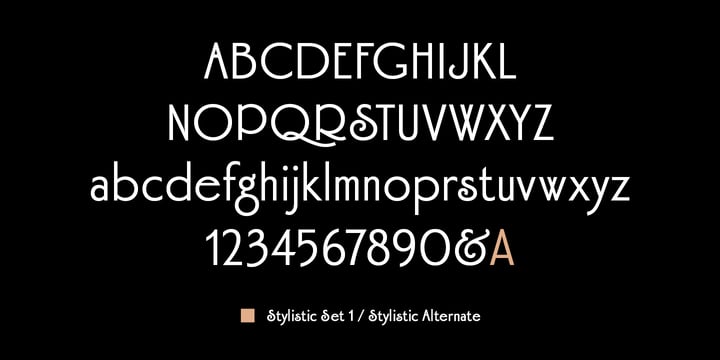
Hamptons BF™
The Hamptons BF Font Family was designed by John Bomparte and published by Bomparte's Fonts. Hamptons BF contains 3 styles and family package options. More about this family
Hamptons BF is a beautiful, elegant sans serif with dramatic individuality. A font that steps out in Art Deco style.
As a design movement Art Deco came into prominence during the 1920s and 30s when forms were typically sleek, symmetrical, geometric or highly stylized. Today the influence of this enduring style can be clearly seen in architecture, industrial design, fashion, art, graphic design, and yes, even type design.
Art Deco style exemplifies luxury, glamour and modernity. I believe Hamptons BF captures something of that retro look in a nod to the past without ever looking dated, all the while retaining a contemporary flair.
Named after the well-known New York resorts synonymous with style and elegance, this gothic or sans serif type is based upon University Roman, an early 1970s serif design which in turn was influenced by yet another serif design called Forum Flair (late 1960s); and that in turn owes its pedigree to the late 1930s’ Stunt Roman, which is the original source of inspiration for all of these. Quite a family tree!
There’s dynamic interplay between certain wide, full-round letters such as C, D, G, O, P, Q, R, S and narrow ones like A, E, F, H, K, L, M, N, U, etc. This contrast repeats throughout certain lower case letters and serves to create a unique look of distinction. Light and Regular weights communicate a romantic, feminine appeal while the Bold offers a complementary emphasis.
The font is somewhat versatile as in addition to its primary purpose for display, Hamptons BF also succeeds in settings containing short blocks of large text. It’s right at home in a variety of typographic environments: branding, packaging, signage logos, magazine headlines, invitations, menus, trendy cafes and more. Among the included OpenType features are Stylistic Alternates, Automatic Ligatures and Fractions. There is extended language support for Western, Central and Eastern Europe and Turkish.